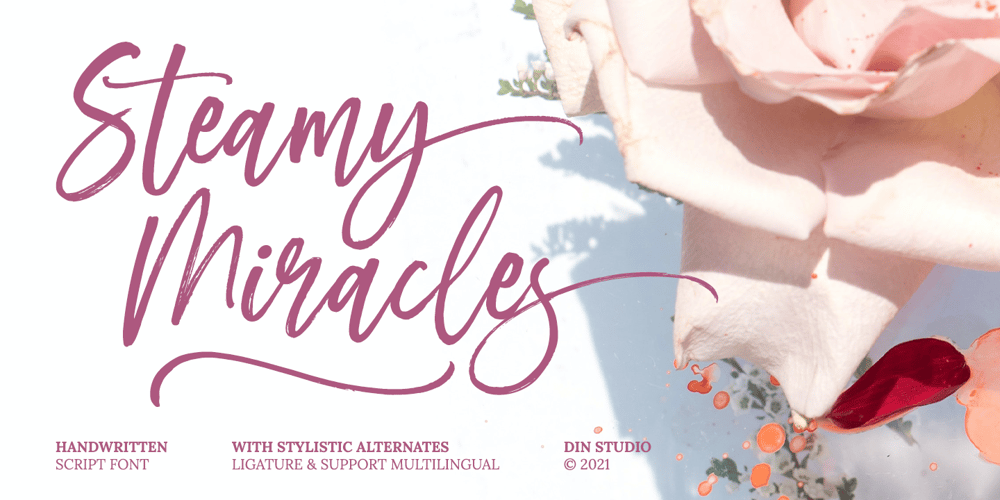
Steamy Miracles Font Family was designed by Donis Miftahudin and published by Din Studio. Steamy Miracles contains 1 styles and family package options. Steamy Miracles is a handwritten script font which is a mixture of incredible drama and gracefulness to clearly express a modern design. Each letter’s details show some curvy, sharp strokes on the edges. Due to its great legibility, you may apply this font for either bigger- or smaller-sized texts.Features: Ligatures Stylistic Sets Swashes Multilingual Supports PUA Encoded Numerals and Punctuations Sreamy Miracles fits best for various designs, such as posters, banners, logos, book covers, headings, printed products, merchandise, social media, and more. Find out more ways to use this font by taking a look at the font preview. Thank you for purchasing our font and happy designing.